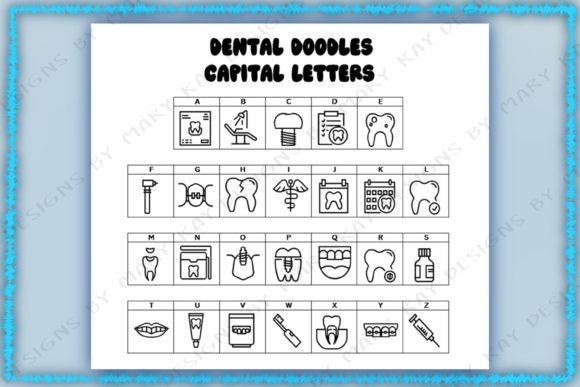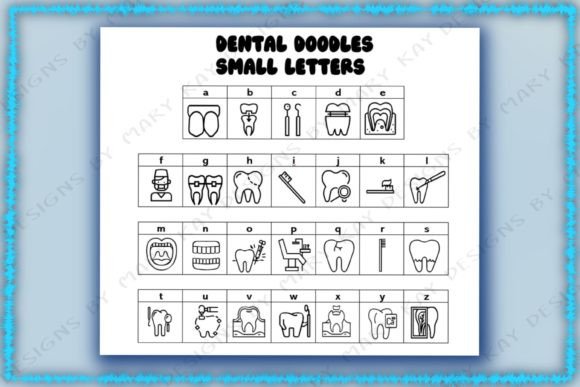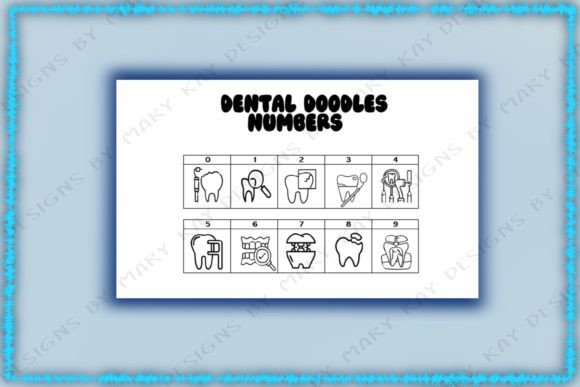
Dental Doodles Font: A Fun and Quirky Way to Express Your Love/Hate Relationship with Dentists
Are you one of those people who have a love/hate relationship with dentists and dental work? On one hand, you’re grateful for modern dentistry and the convenience it brings, but on the other hand, getting your teeth done causes stress and anxiety. Well, we’ve got some good news for you! Introducing Dental Doodles Font, a unique and playful font that lets you express your feelings in a fun and creative way.
What is Dental Doodles Font?
Dental Doodles Font is a digital font that contains 62 dental-themed images, ranging from cute and funny to cringe-worthy and relatable. These images are designed to help you express your emotions and add a personal touch to your designs, whether you’re a designer, crafter, or simply someone who loves to create. With Dental Doodles Font, you can add a dash of humor and whimsy to your projects, making them stand out from the crowd.
How to Use Dental Doodles Font
The best part about Dental Doodles Font is its versatility. You can use it in a variety of ways, from greeting cards and postcards to scrapbooks, planners, journals, social media posts, invitations, and posters. The possibilities are endless! Here are some ideas to get you started:
- Create a humorous greeting card for a friend who’s heading to the dentist
- Add a playful touch to your scrapbook pages or photo albums
- Design a funny invitation for a dental-themed party or event
- Use the font to create engaging social media posts or blog graphics
- Make a personalized planner or journal with a dental twist
Customizing Dental Doodles Font
One of the best features of Dental Doodles Font is its customizability. You can color the images just like you would any font, add a background image to them, or use them plain. This means you can match the font to your brand colors, add texture or patterns, or simply use it as is. The choice is yours!
Combining Images for Unique Clipart
Another great feature of Dental Doodles Font is the ability to combine images to create your own unique clipart. With 62 images to choose from, you can mix and match to create something entirely new and original. This is perfect for designers and crafters who want to create something truly one-of-a-kind.
Who is Dental Doodles Font for?
Dental Doodles Font is perfect for:
- Designers who want to add a playful touch to their designs
- Crafters who love to create unique and personalized projects
- Dentists or dental hygienists who want to add some humor to their marketing materials
- Anyone who loves to create and express themselves through digital art
In conclusion, Dental Doodles Font is a fun and quirky font that’s perfect for designers, crafters, and anyone who loves to create. With its 62 dental-themed images, customizability, and versatility, it’s the perfect way to express your love/hate relationship with dentists and dental work. So why not give it a try and see what kind of creative projects you can come up with?